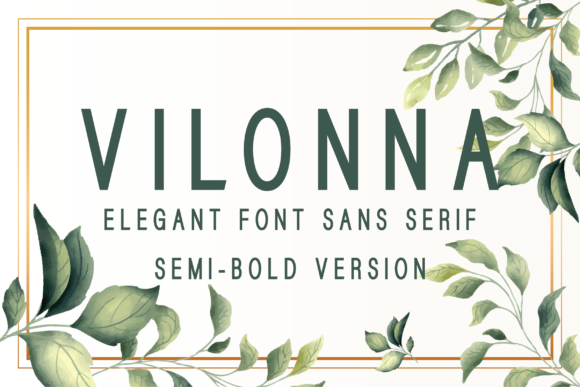
Prepare to be mesmerized by Vilonna Semi-Bold, a mid-century modern masterpiece that oozes sophistication with its clean lines and sharp edges. This captivating font is a work of art that instantly elevates any design, transforming it into a timeless classic.
Unleash your creativity with Vilonna Semi-Bold, a true chameleon that adapts seamlessly to any project. Whether you're crafting a captivating logo, designing elegant wedding invitations, or creating eye-catching advertisements, Vilonna's versatility knows no bounds.
With its timeless appeal, Vilonna Semi-Bold is a treasure for designers seeking to create lasting impressions. Its sharp angles and precise curves evoke a sense of modernity, while its understated elegance adds a touch of sophistication to any design.
Experience the transformative power of Vilonna Semi-Bold today and elevate your designs to new heights. Its versatility and timeless appeal make it the perfect choice for any creative endeavor, leaving a lasting impact on your audience.